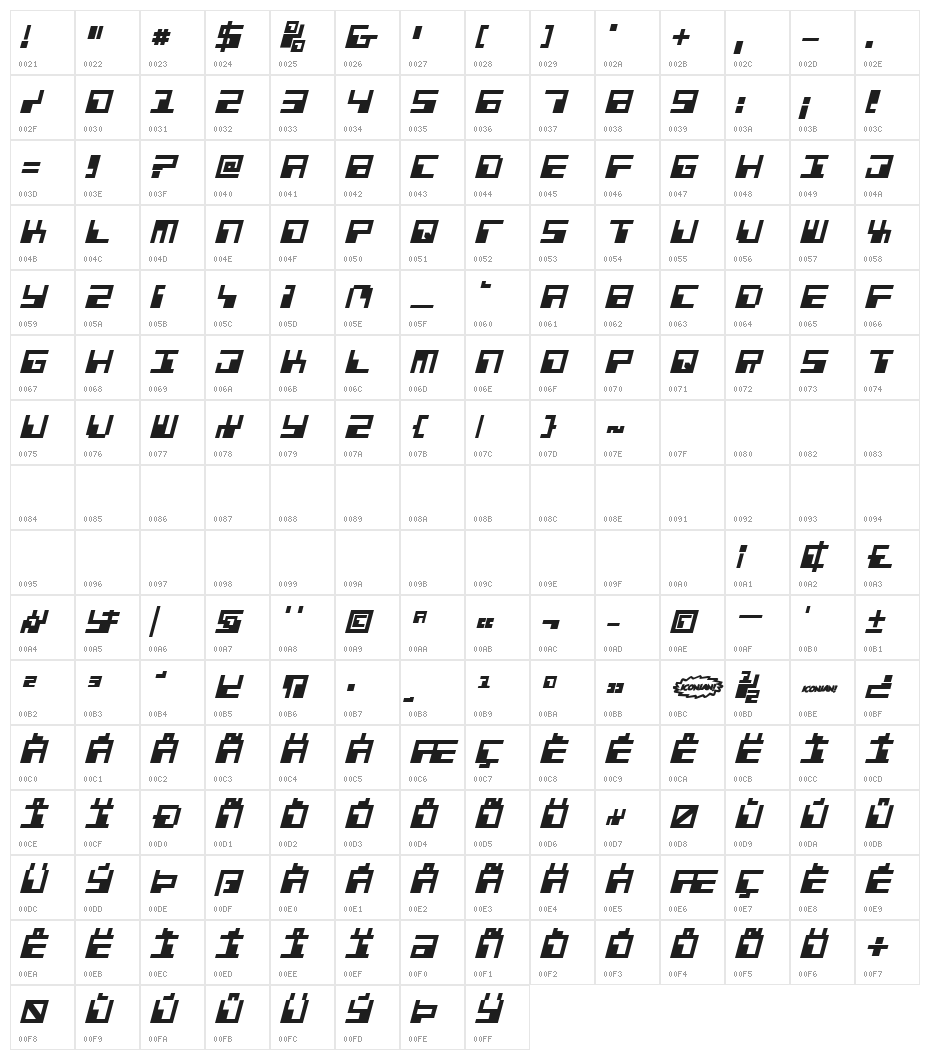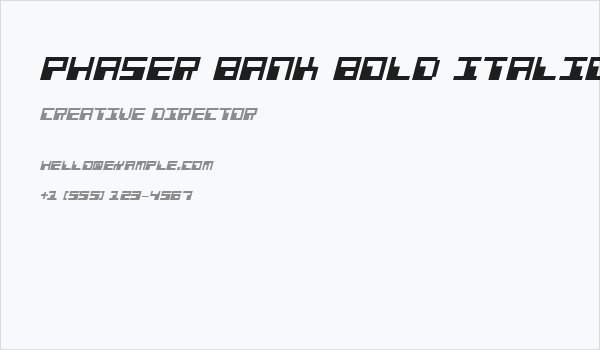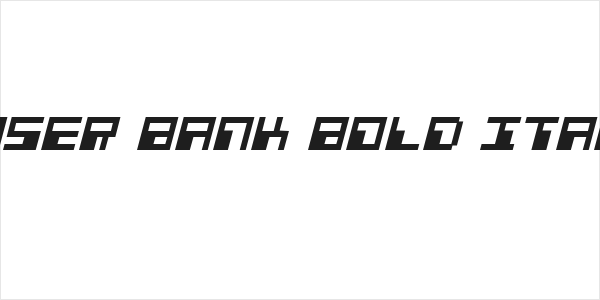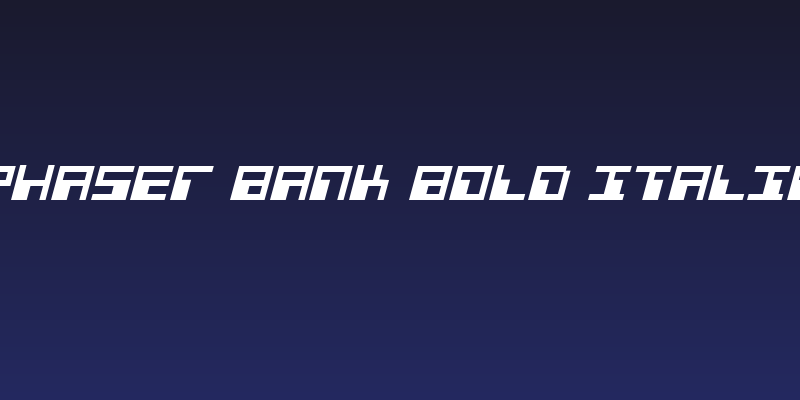
Phaser Bank Bold Italic Font
Phaser Bank Bold Italic Description
This font features a bold and italicized style with a futuristic and dynamic appearance. The characters are sharply angled, giving them a sense of motion and energy. The uppercase and lowercase letters maintain a consistent geometric form, while the numbers and special characters follow the same angular theme. The overall design is sleek and modern, making it suitable for projects that require a strong and impactful visual presence.
Proposed ProjectsIdeal for sci-fi themed designs, video game titles, tech branding, and dynamic posters.